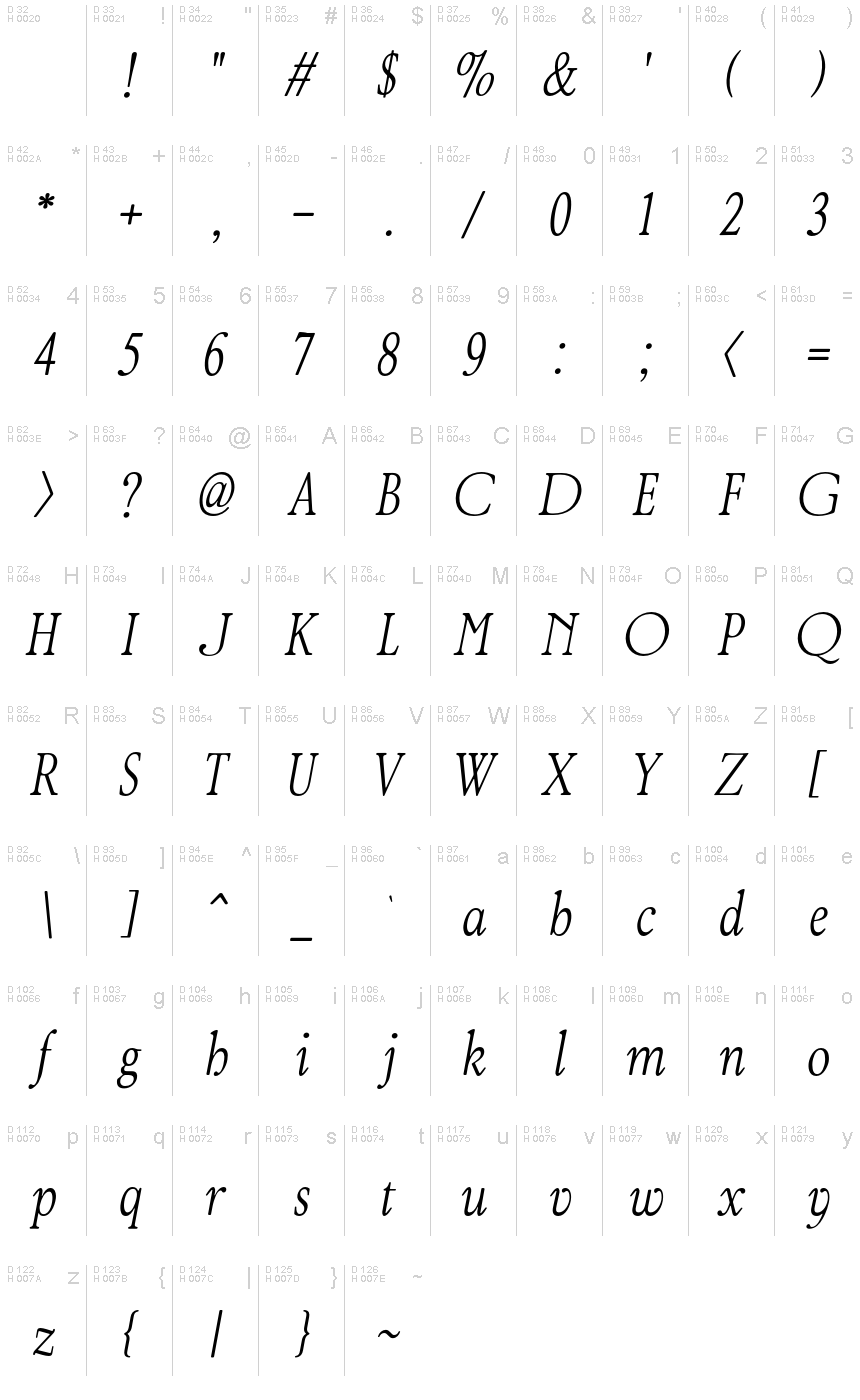
ZT Bros Oskon 90s Italic
ZT Bros Oskon 90s Italic font, which is part of the ZT Bros Oskon 90s family by Zelow Type, achieves an interesting mixture of nostalgia and modernity. It’s a pretty classy typeface with serifs that has been squeezed into existence with a lot of elegance. Additionally, the italic font version looks quite dynamic and can be used to create eye-catching headlines or trendy logos. As a freebie typeface this is perfect for designers looking to incorporate the trendsetting aesthetics of the 90s into their creations without incurring costs.
To raise your project’s fashion quotient across fashion editorials, creative posters or vintage inspired sites get this free font that never goes out of style. Thus, no matter how visually crowded it might have become today, what sets you apart from all other brands? The only answer is: ZT Bros Oskon 90s Italic with its outstanding personality and mannerism.